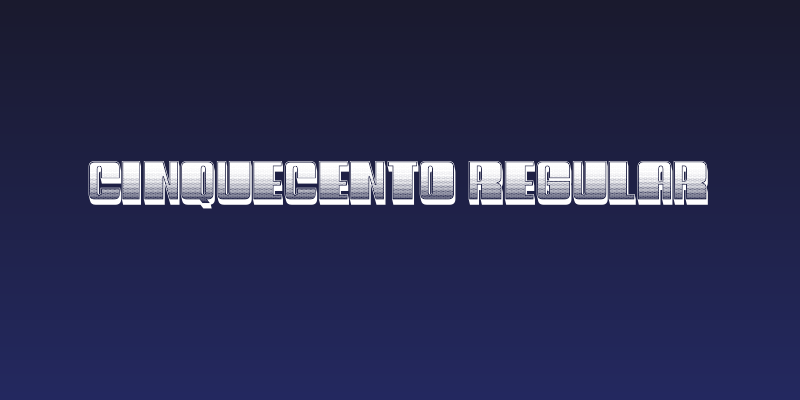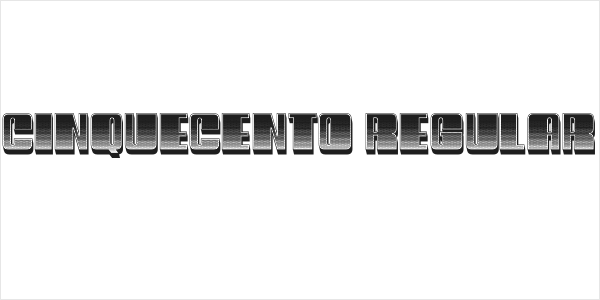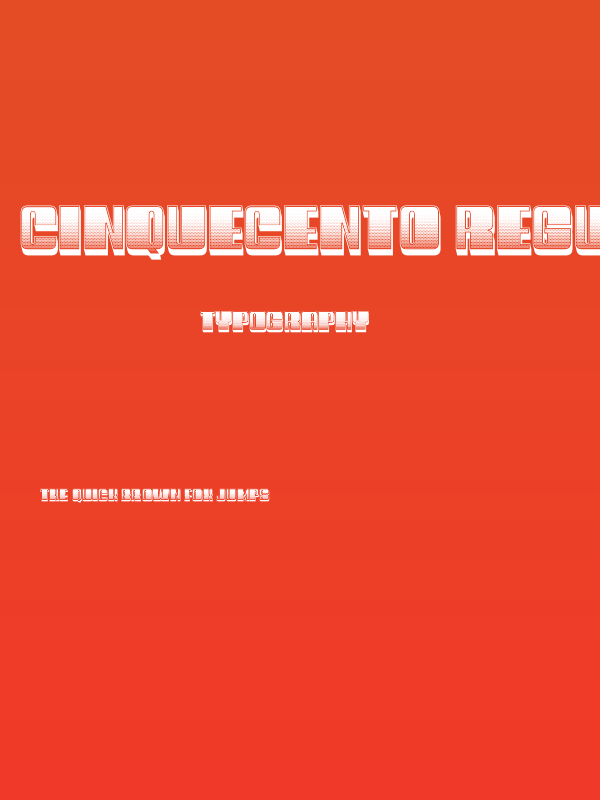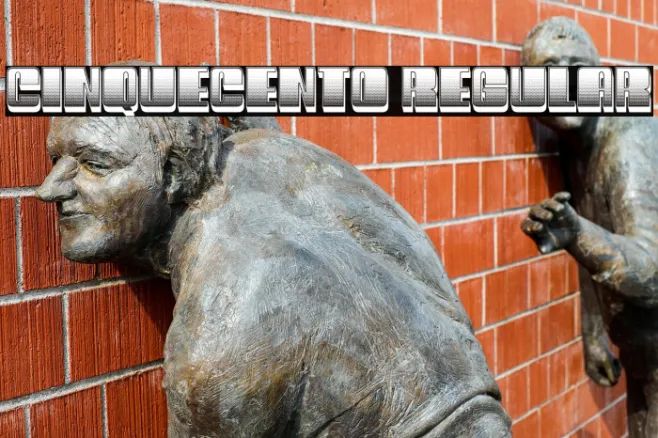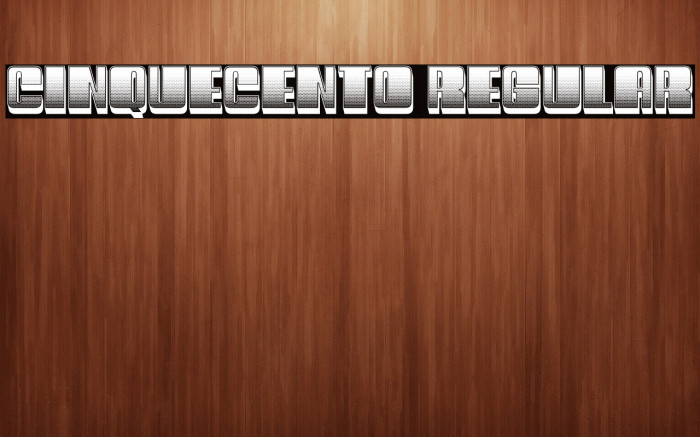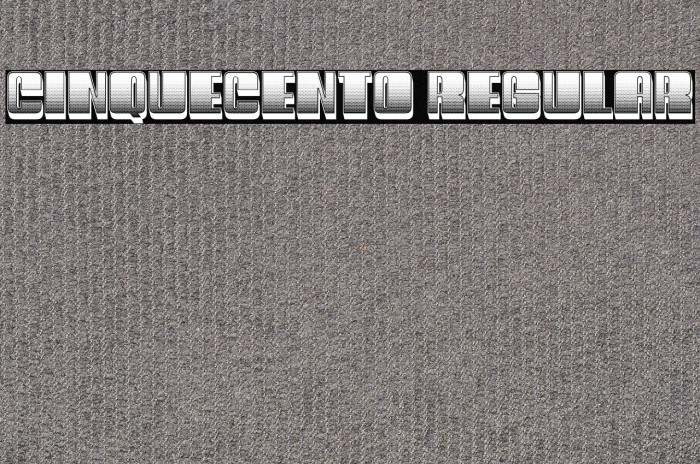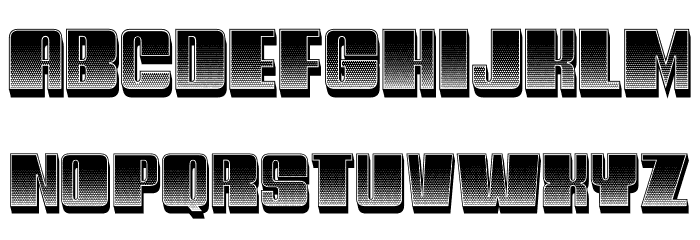
Cinquecento Regular Font
Cinquecento Regular Description
This font features a bold and striking design with a three-dimensional effect, achieved through a halftone pattern that gives it a textured appearance. The characters are uppercase and have a strong, blocky structure, making them highly visible and impactful. The font's style is reminiscent of vintage or retro aesthetics, with a modern twist due to its unique shading technique. The letters are evenly spaced, providing a balanced and cohesive look. This font is ideal for creating eye-catching headlines, posters, or any design that requires a bold statement.
| Proposed Projects | Ideal for posters, headlines, branding, and any design needing a bold, retro aesthetic. |